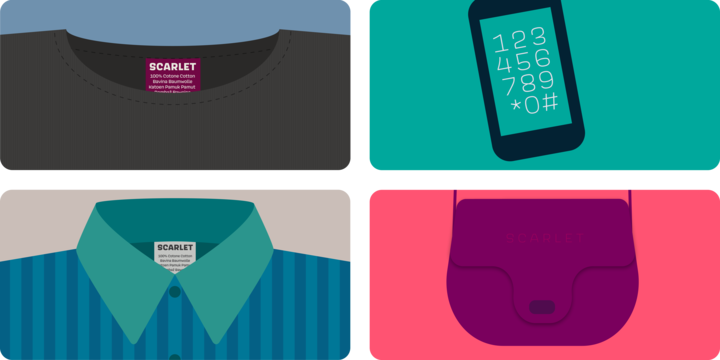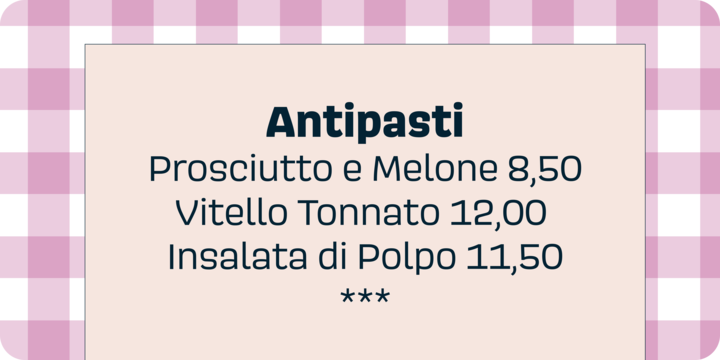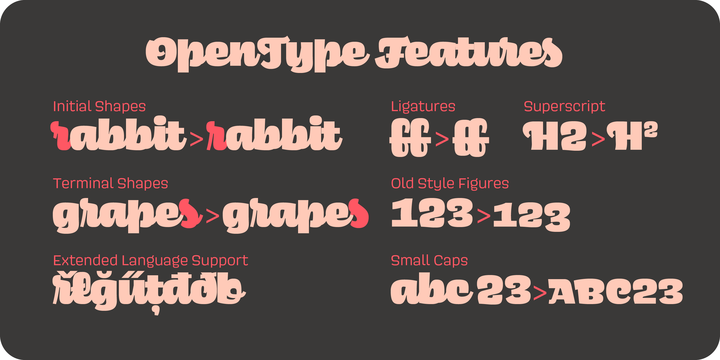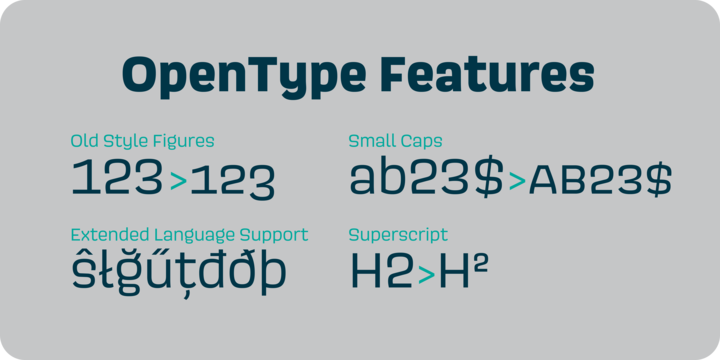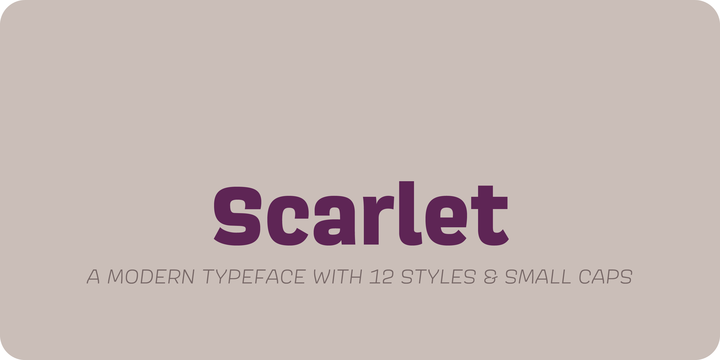
Scarlet
Scarlet Font
Scarlet Font Family
Had Alexander Girard & Aldo Novarese teamed up to design a typeface, Scarlet might have been the result. In his admiration of the graphic language of the 1960s, Jürgen Huber has designed this sans serif typeface with a matching script in 2015/16.